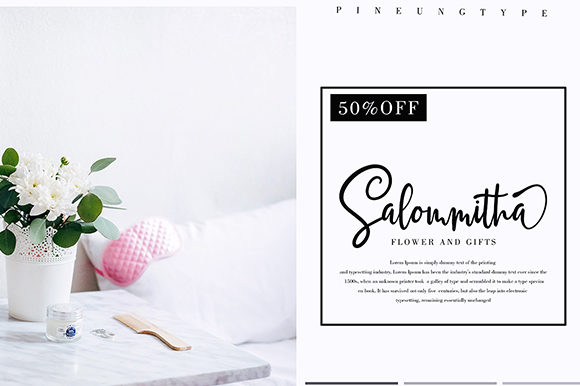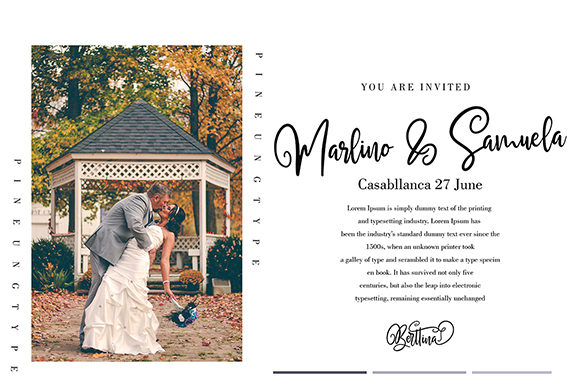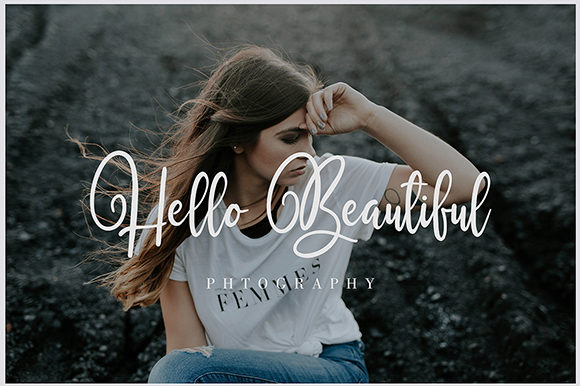
Berttina Font
About Berttina Font
Berttina is a unique and light handwritten font with a stunning feel. It will effortlessly update any design project!